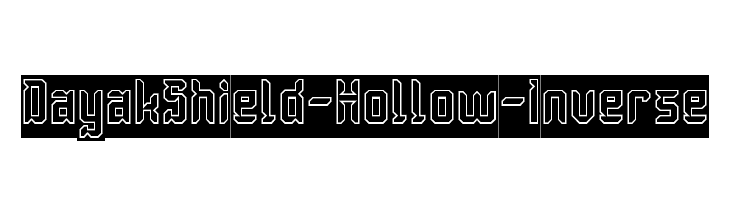
A bold, hollow, geometric font with a modern and angular style.
A bold, angular font with a geometric, shield-like design.
A bold, angular font with a tribal-inspired, geometric design.